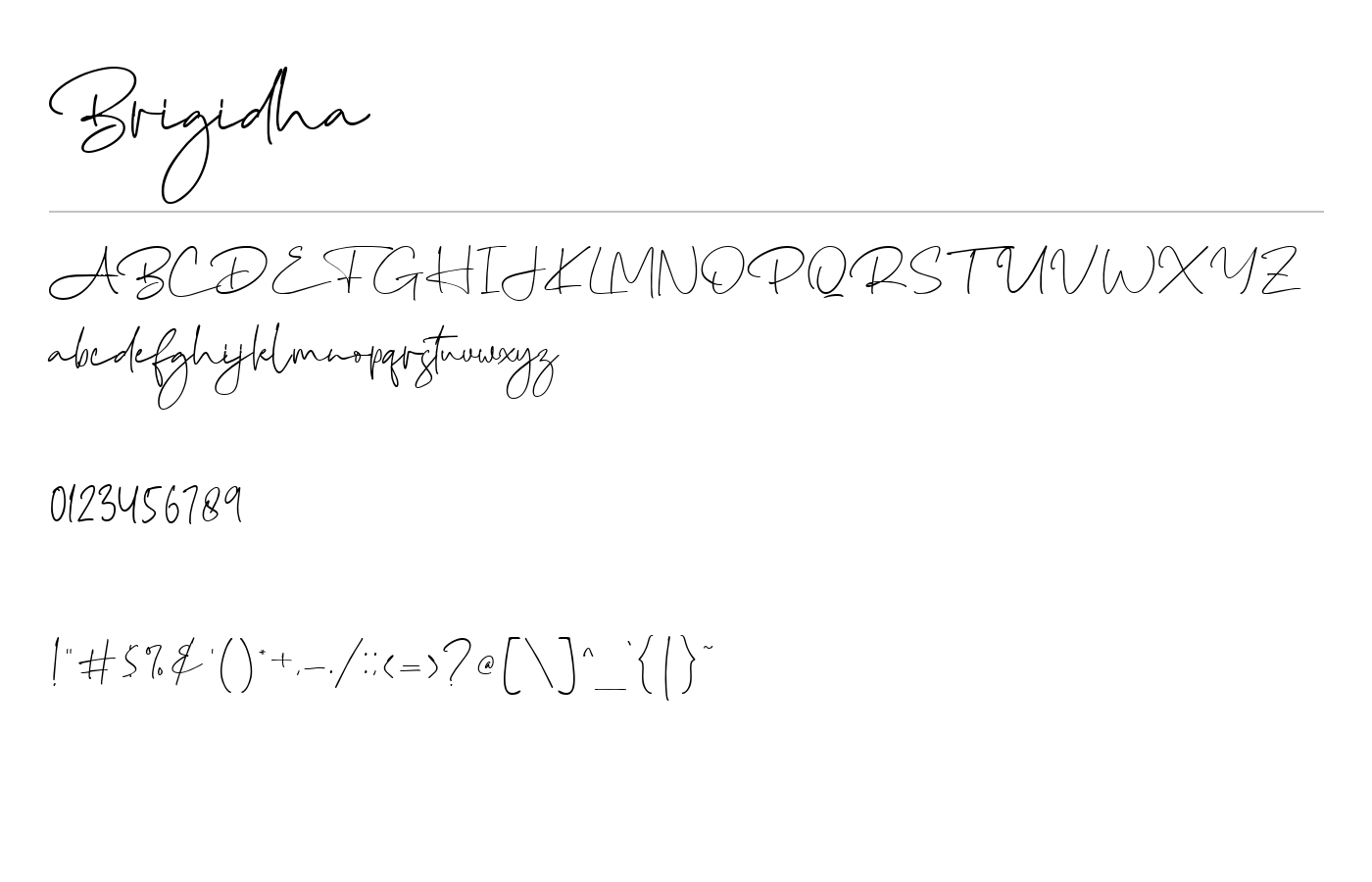
Brigidha is a delicate, handwritten script font characterized by its fine, flowing lines and elegant, natural strokes. Its slender, airy letterforms with gentle curves convey a personal and whimsical feel, making it ideal for creative projects, invitations, and branding that seeks a touch of sophistication with a casual, intimate vibe. This font works best in headline or display uses where its graceful charm can shine.
Brigidha Font
About Brigidha Font